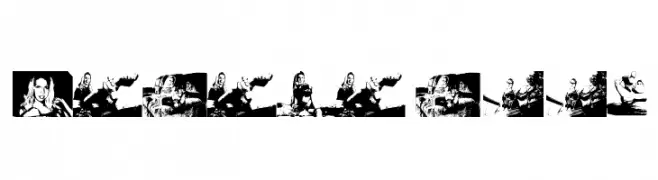
( Fonts by Matthew Austin Petty - www.disturbed.com )
A decorative font with whimsical mushroom illustrations for each character.
A decorative font made entirely of dinosaur silhouettes.
Silhouetted action poses of women, not a font.
( Fonts by Tom Raaijmakers )
Abstract, tech-themed dingbat font with bold, decorative symbols.